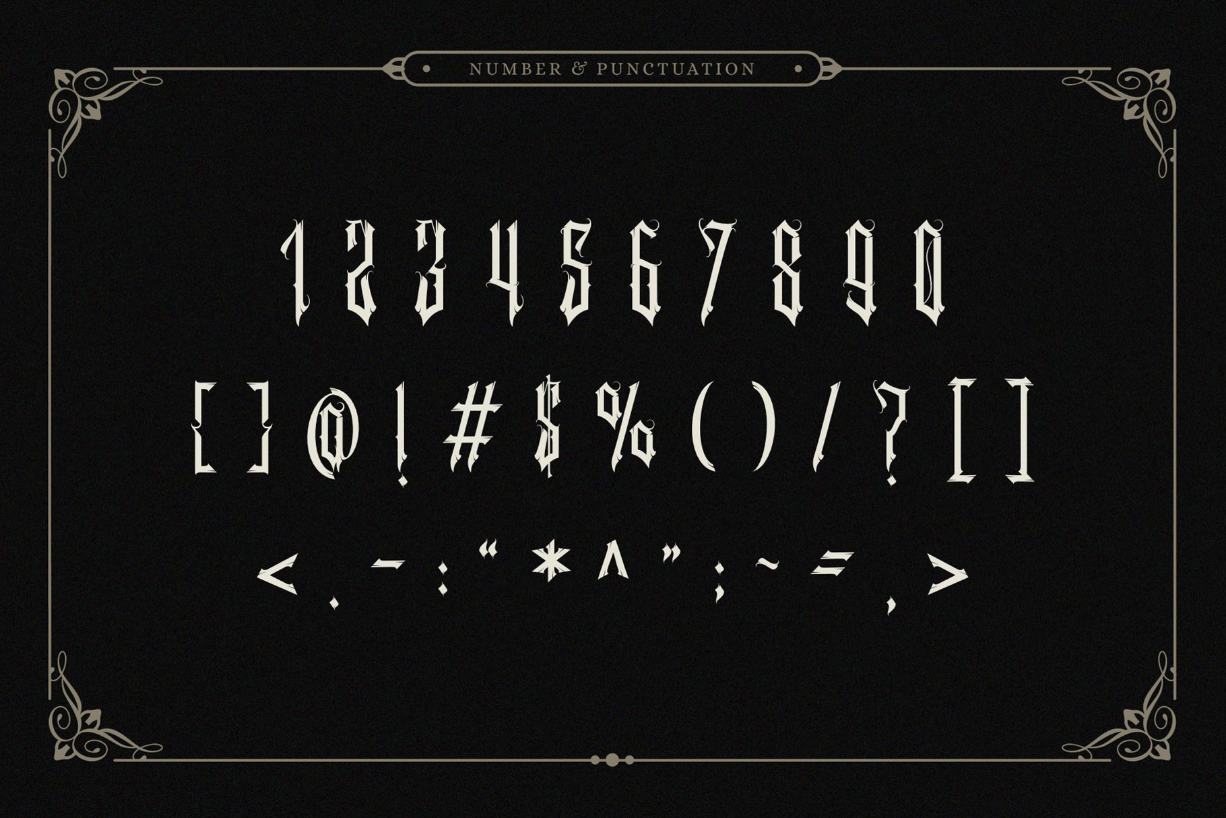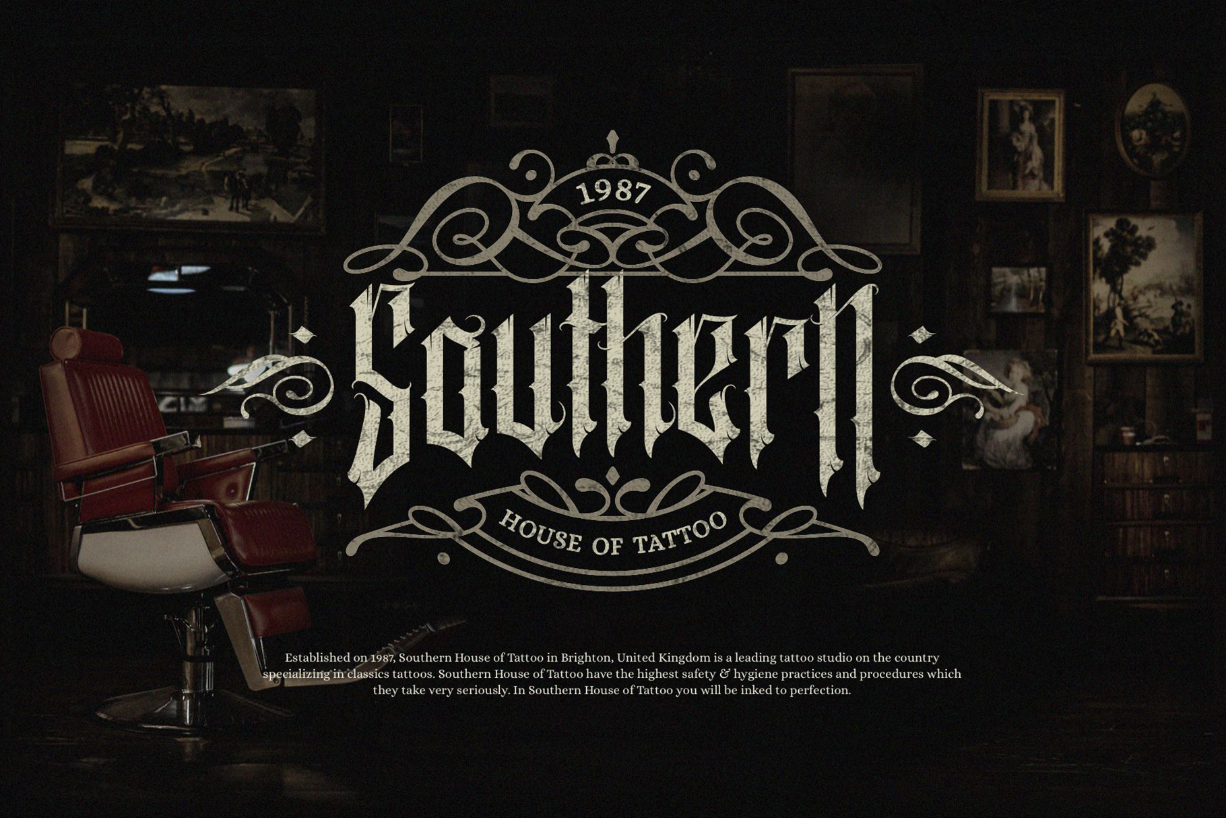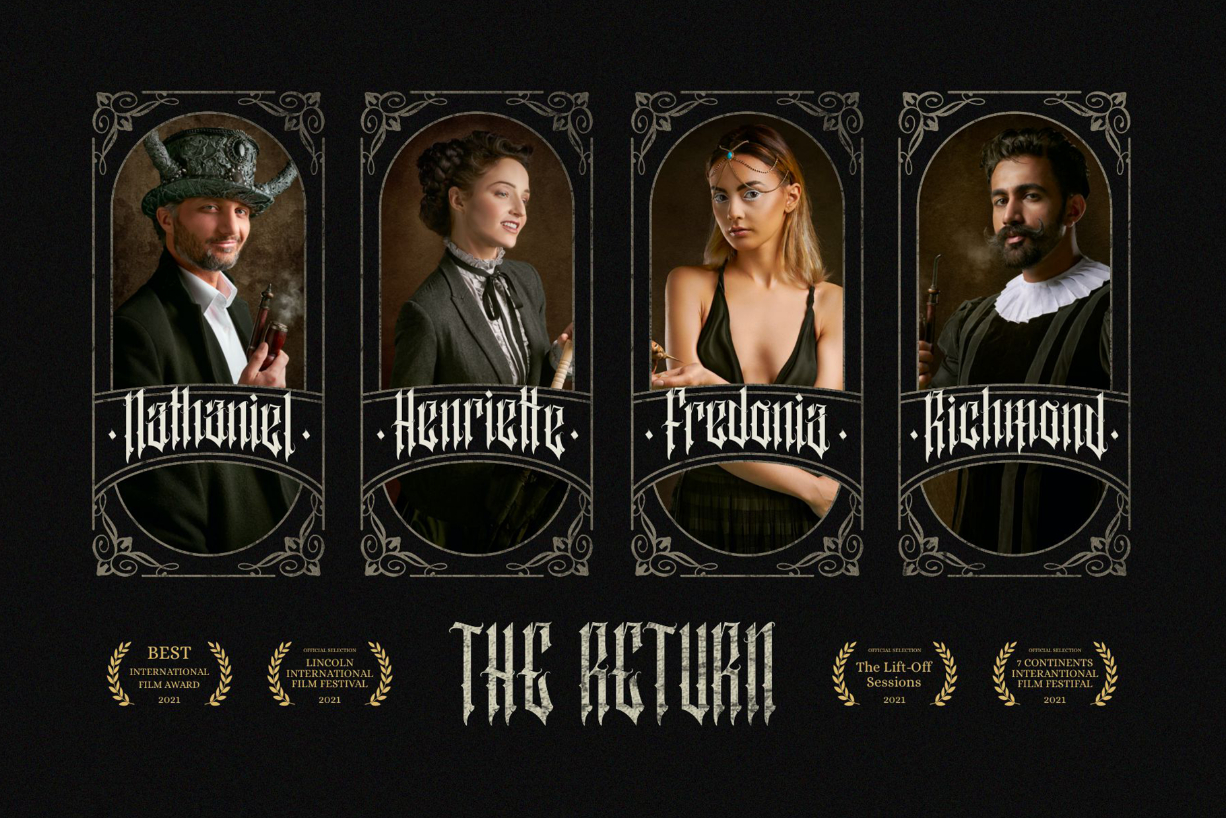
About Auvelamerde Font
Auvelamerde is a classic and assertive blackletter font. It will instantly make each of your creations stand out. Add it confidently to your favorite creations and let yourself be amazed by the outcome generated.